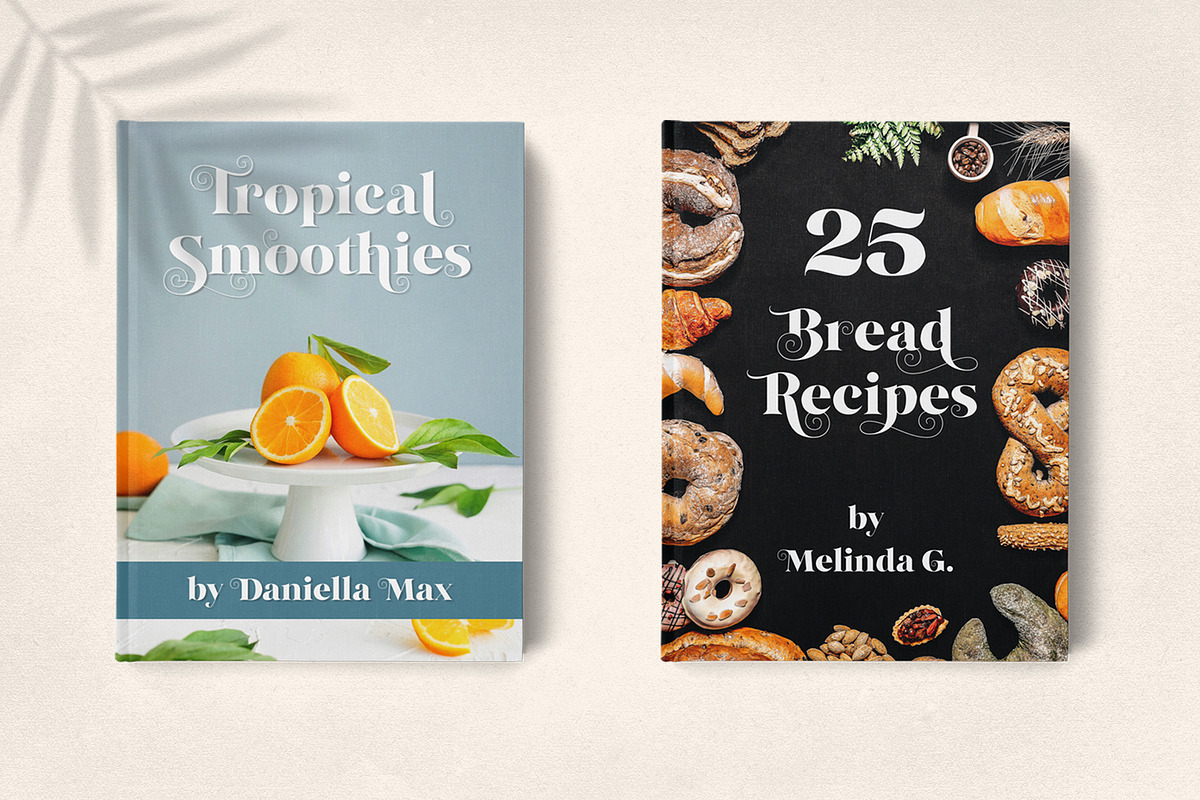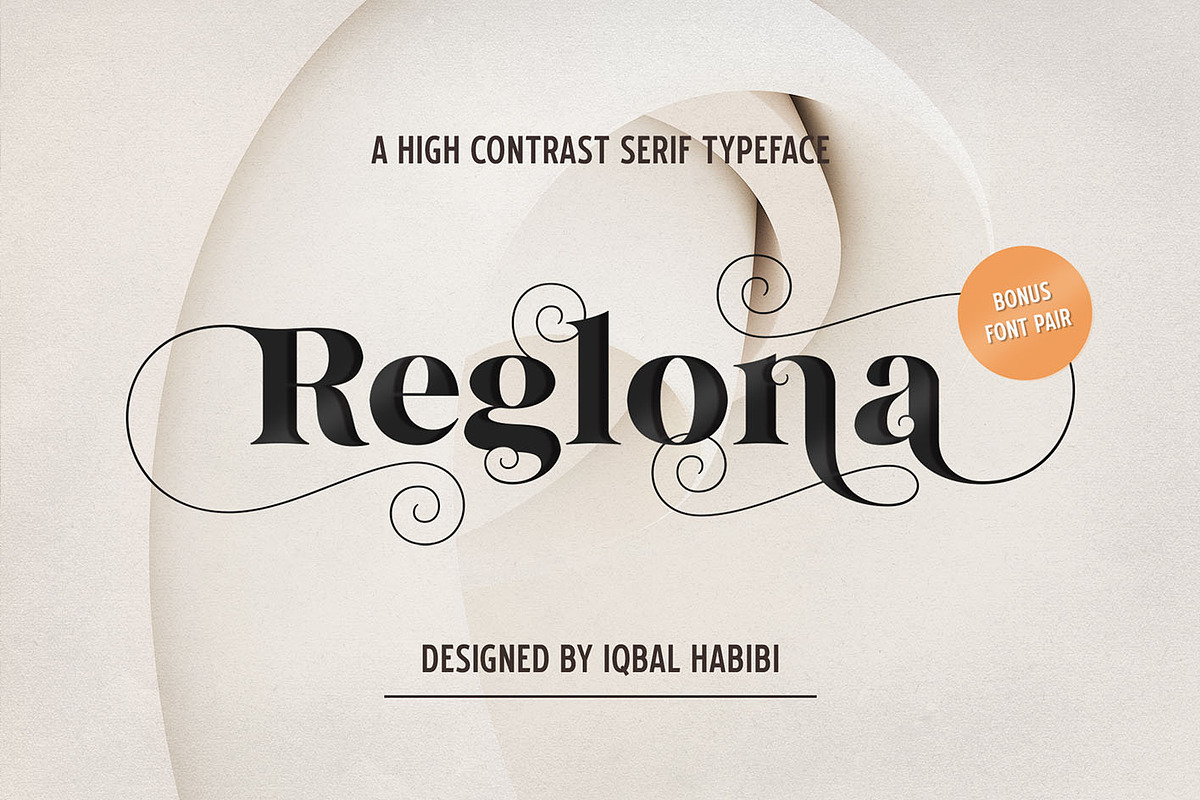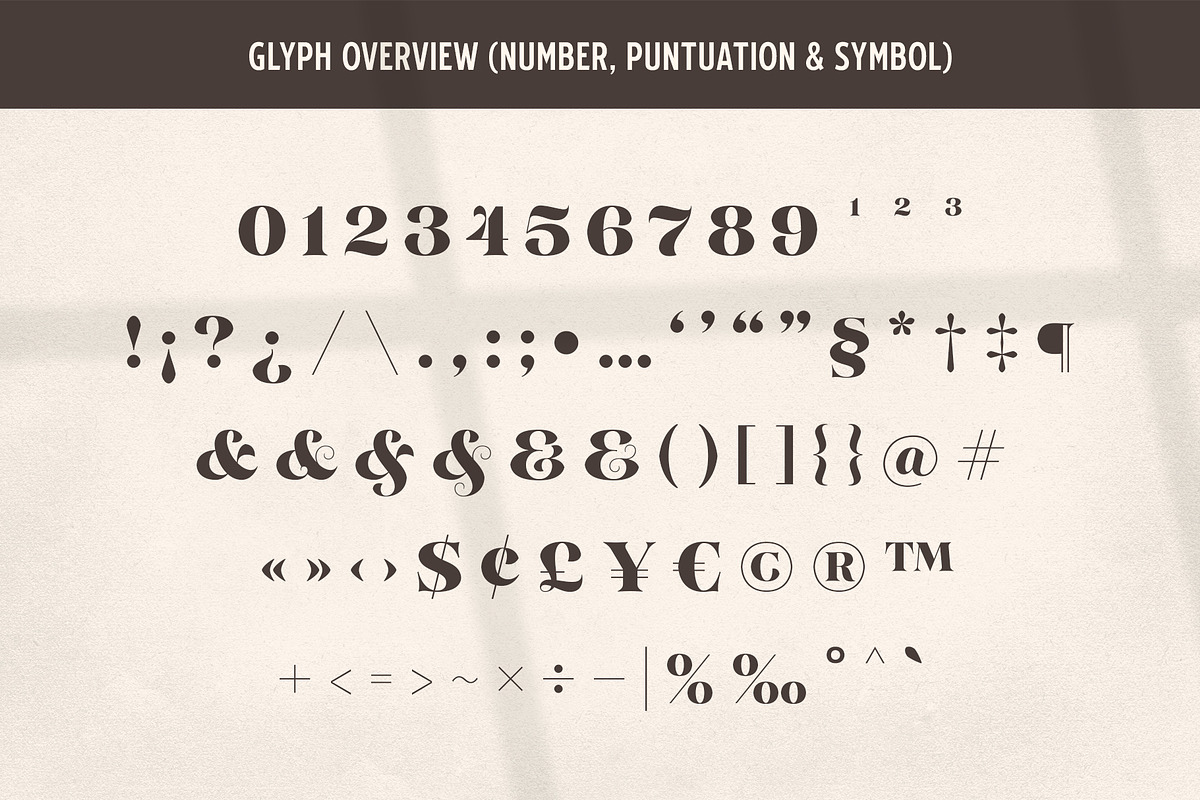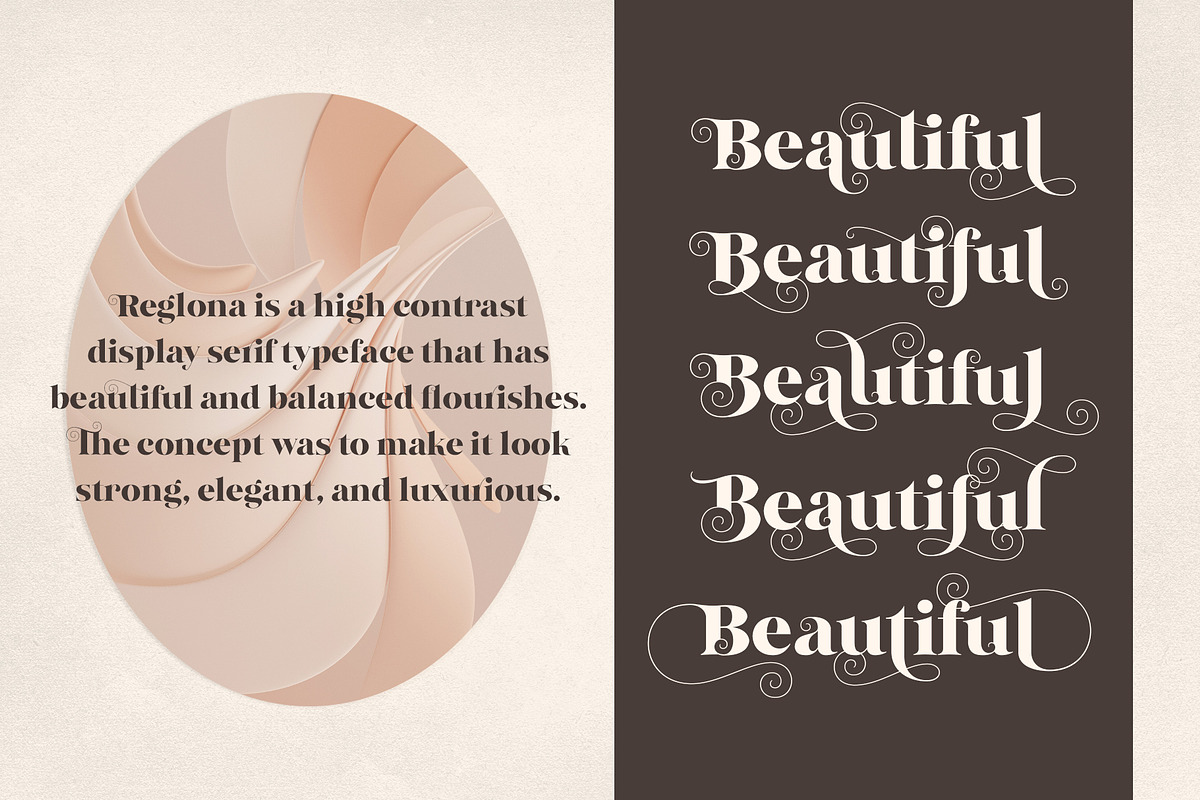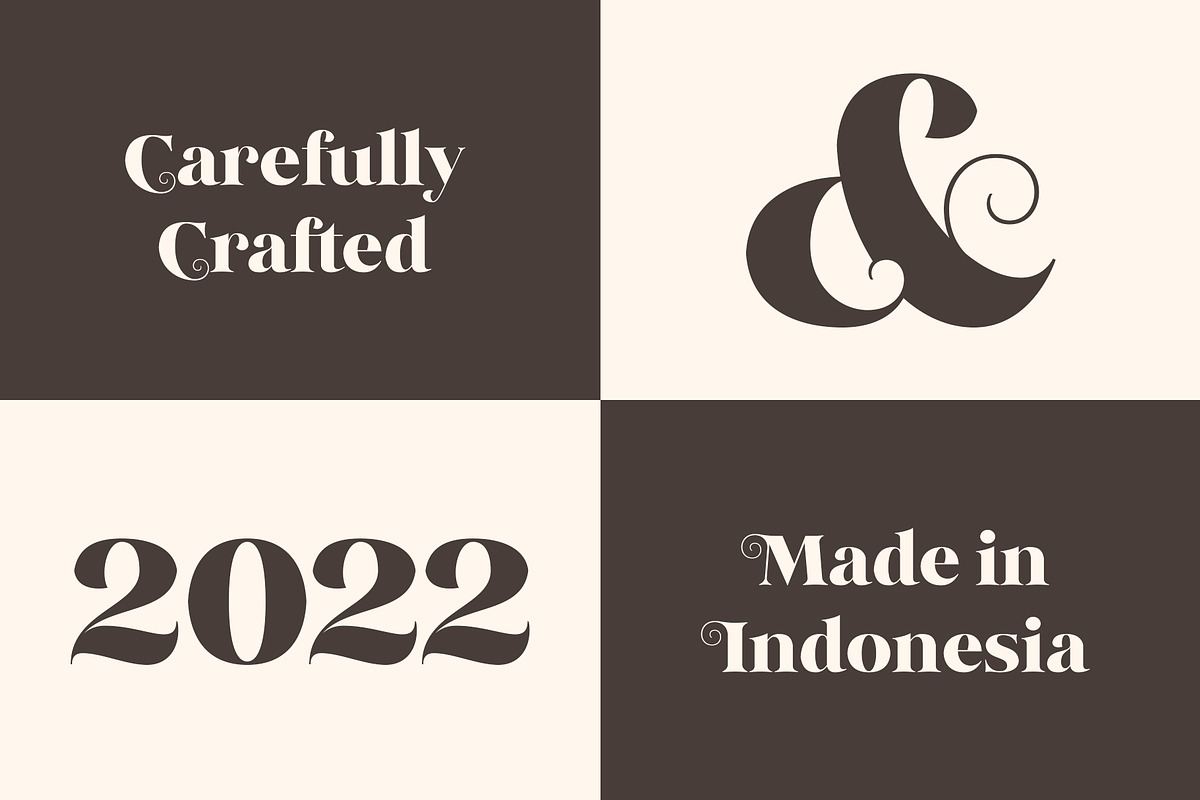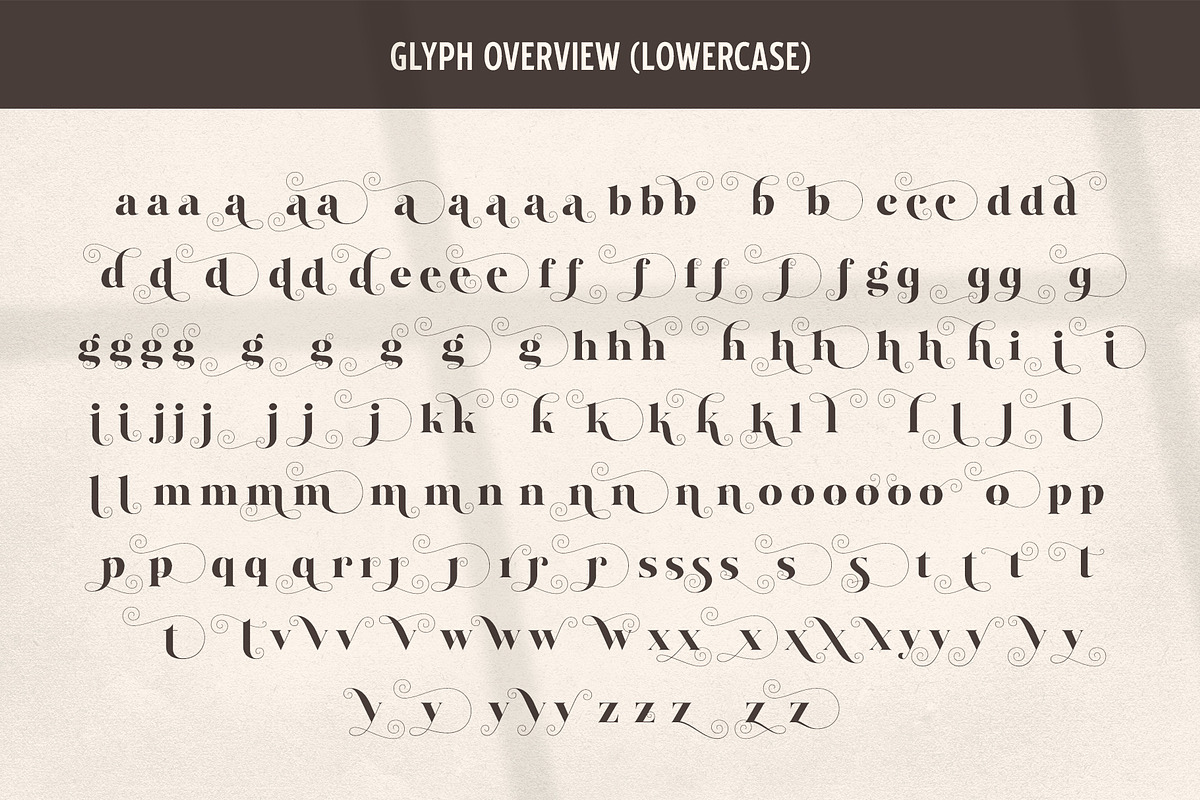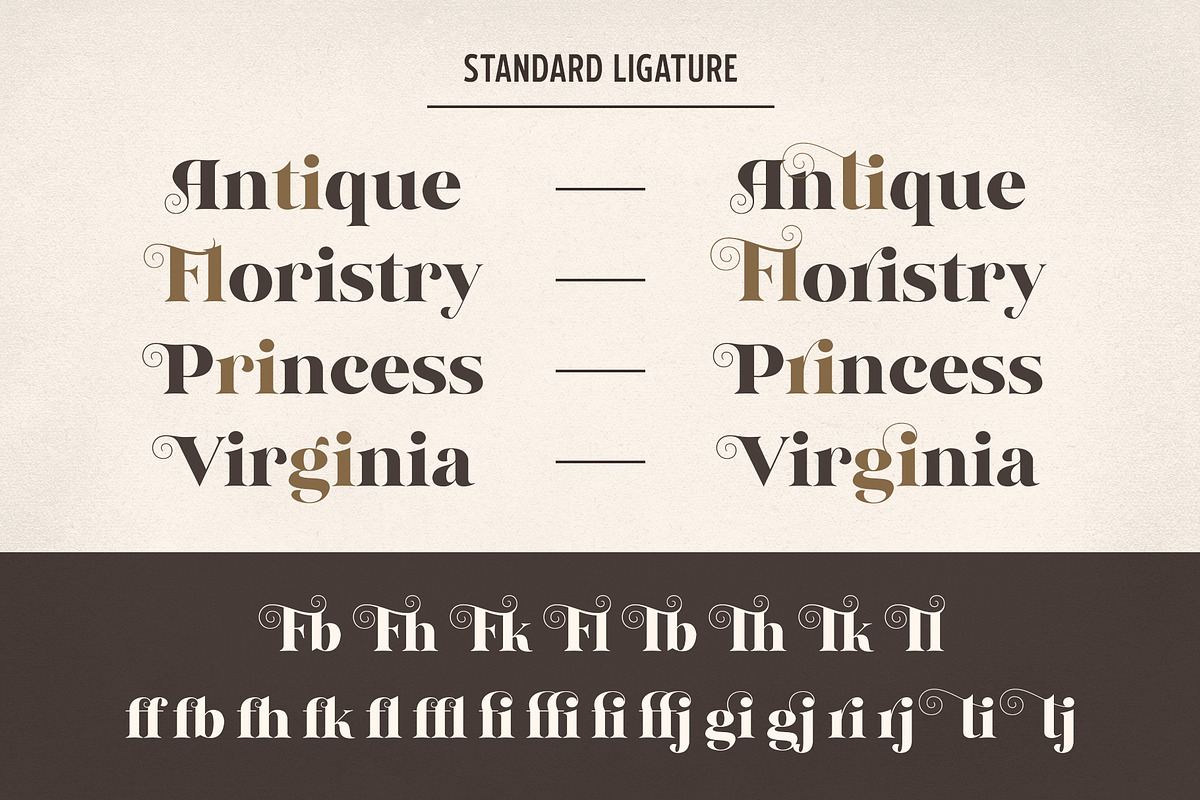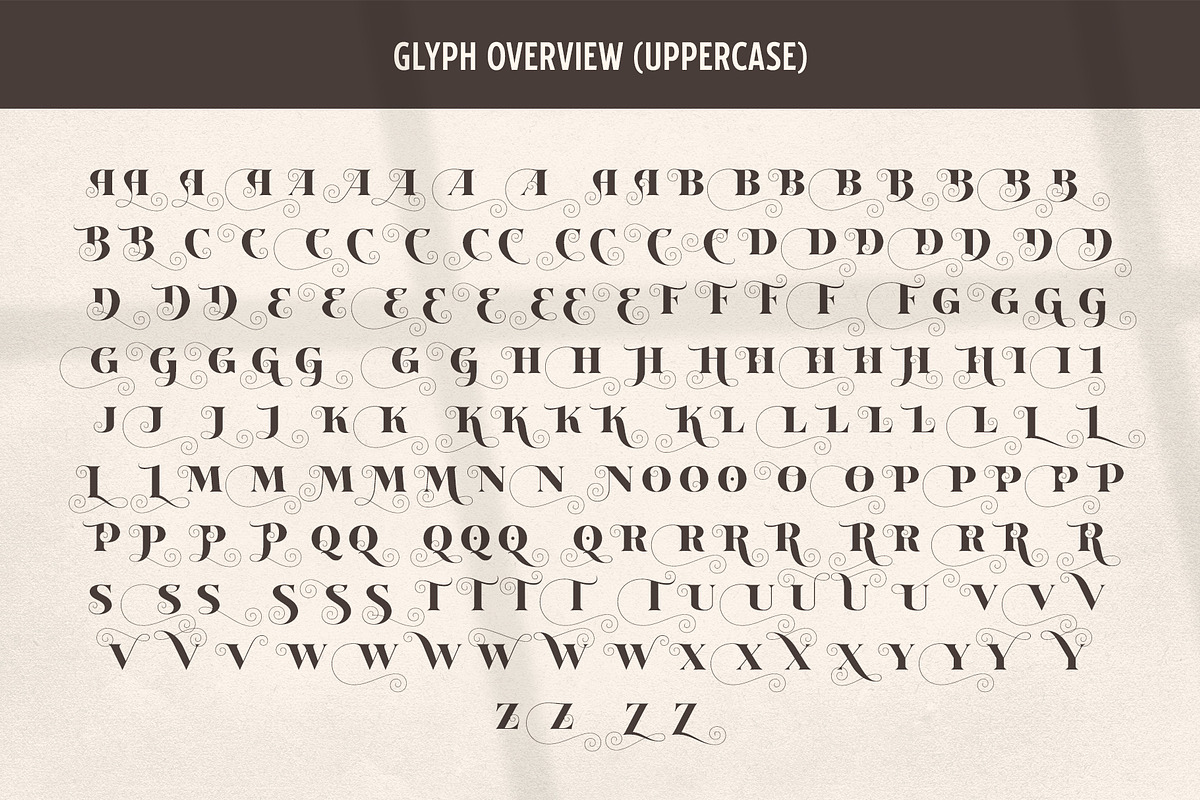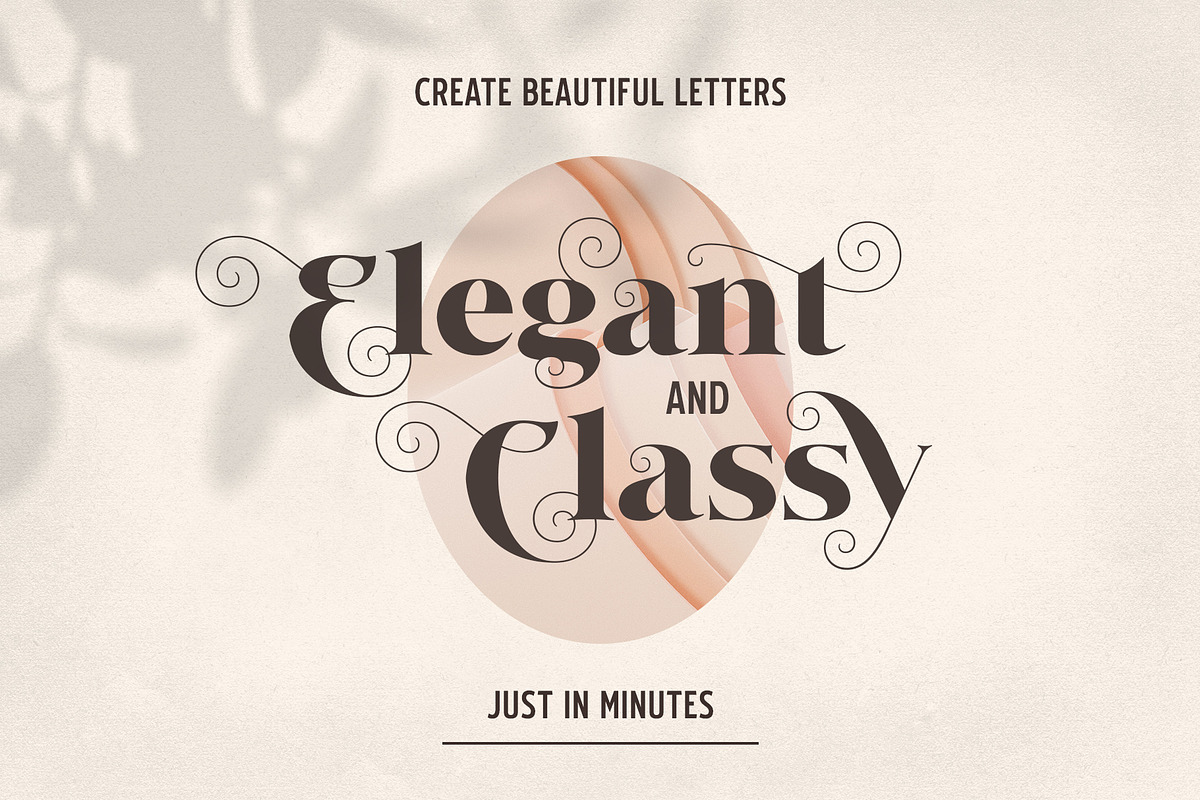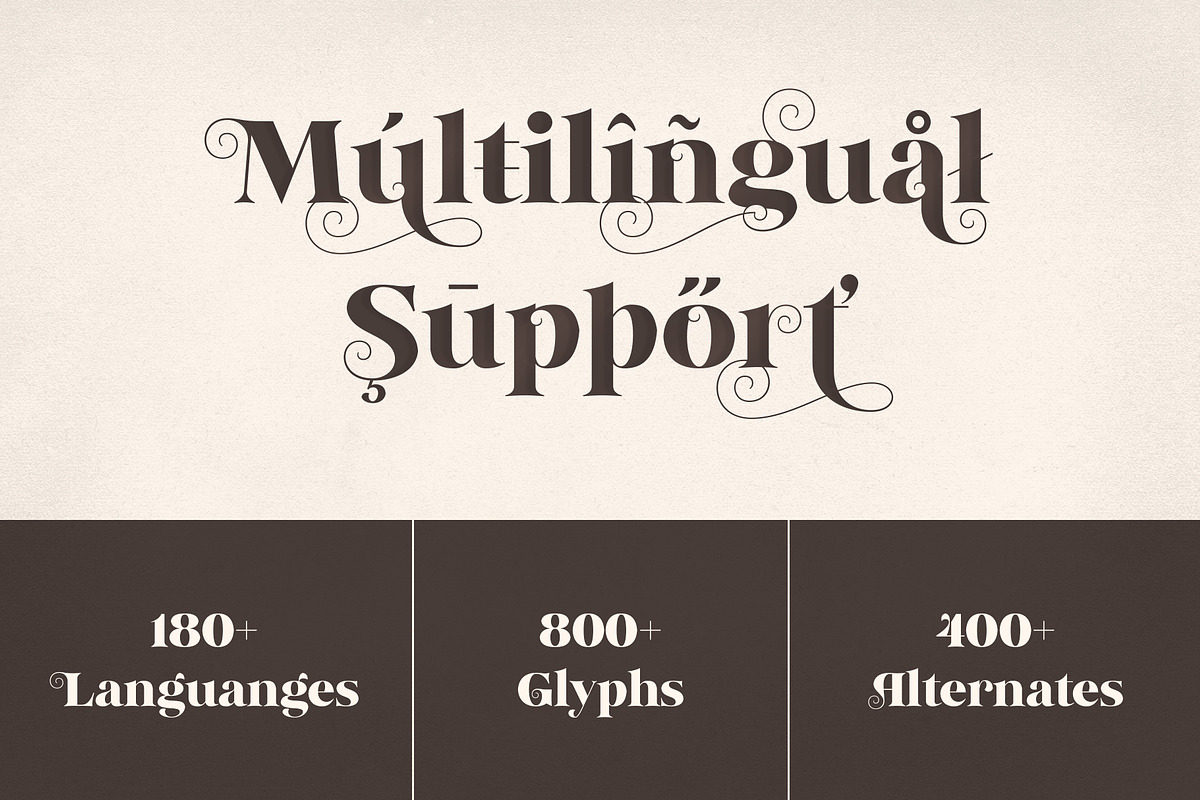
Reglona - High Contrast Serif
Reglona is a high-contrast display serif typeface that has beautiful and balanced flourishes. The concept was to make it look strong, elegant, and luxurious. Reglona contains 400+ alternate characters you can play with. Reglona perfectly suited for Headlines, Logotypes, Titles, Packaging Designs, Quotes, and other graphic design projects. Lastly, Reglona comes with bonus font for pairing.
This font is buckets of fun. Was looking for a headline font with a touch of whimsy and Reglona fit the bill perfectly. There are MANY glyphs, so there are never-ending possibilities. My only beef is that I wish there were more ligatures, but it's still gonna be my go to for many a headline and initial cap.